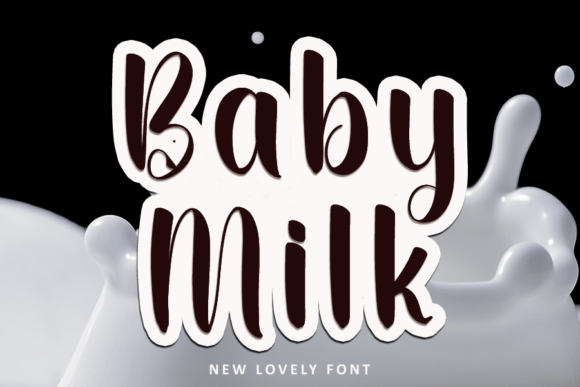
Unleash Your Creativity with the Baby Milk Font
Have you ever stared at a blank canvas, feeling the pressure to create something truly special? That’s exactly where I was when I stumbled upon the Baby Milk Font. It was as if the universe knew I needed a little nudge in the right direction. The moment I laid eyes on its elegant, handwritten script, I knew I had found my muse.
Created to evoke the timeless beauty of classic calligraphy, the Baby Milk Font is a true masterpiece. Its contemporary atmosphere and impeccable form make it the perfect addition to any design project. Whether you’re a seasoned pro or just starting out, this font is sure to bring a touch of sophistication and elegance to your work.
With the Baby Milk Font, designers can now create stunning visuals that are sure to captivate their audience. Its versatility and refined style make it a valuable asset for any creative project, from branding to advertising and beyond.
Baby Milk Font Key Features
- Unique Characteristics: The Baby Milk Font features a unique, hand-drawn style with subtle imperfections, giving it a distinctive and personalized feel.
- Legibility: The font is designed to be highly legible, even at small font sizes, ensuring that the text remains clear and readable in a variety of contexts.
- Scalability: The font is designed to be highly scalable, allowing it to be used effectively in a wide range of applications, from small text to large headlines.
Review: Baby Milk Font
Overall, I think Baby Milk Font is a cute and playful font that could work well in certain contexts. ✨ Its rounded shapes and bubbly texture give it a fun, childlike feel that’s perfect for baby-related products or children’s media. ✨ The font is also highly legible, making it a great choice for body text.
- Playful and fun, great for children’s media
- Highly legible, making it perfect for body text
- Rounded shapes and bubbly texture add to its charm
- May be too cutesy for more serious or professional applications
- Lacks versatility, may not work well for longer text passages
- Some characters may not be as well-designed as others
- ⚠️ It’s not a great choice for headings, as the font may get lost in larger sizes.
Overall, I think Baby Milk Font is a solid choice for certain projects, but it’s not a one-size-fits-all solution. If you’re looking for a playful, childlike font for a specific context, Baby Milk Font could be a great fit. Just be mindful of its limitations and consider pairing it with a more serious font for contrast.
Tips for Getting the Most Out of Baby Milk Font
Here are some tips to help you get the most out of Baby Milk Font:
- Use Baby Milk Font for designs that require a playful and whimsical touch.
- Pair Baby Milk Font with other fonts that have a similar feel and style.
- Experiment with different font sizes and styles to add visual interest to your design.